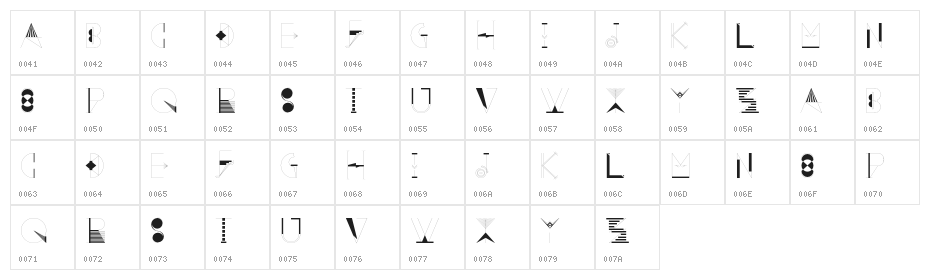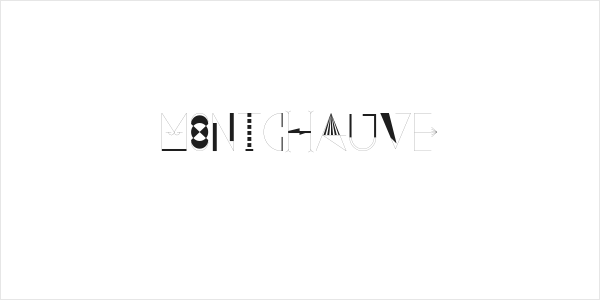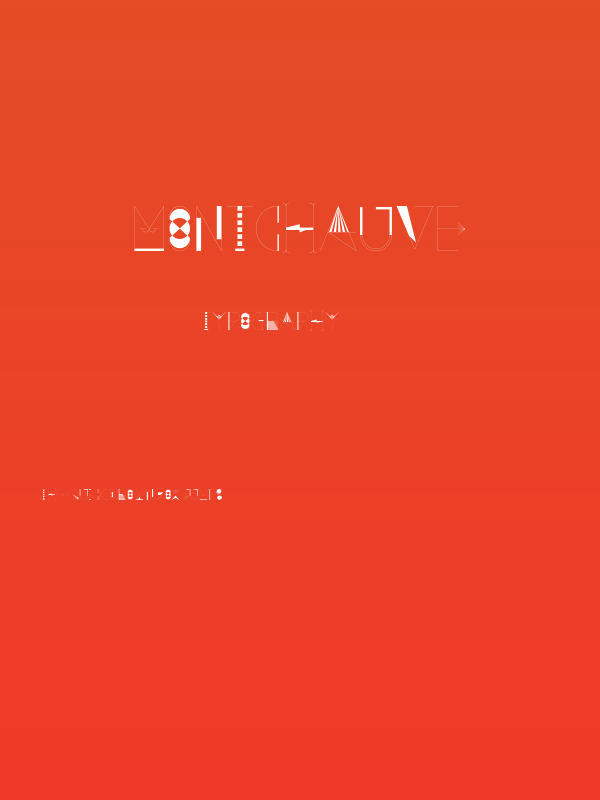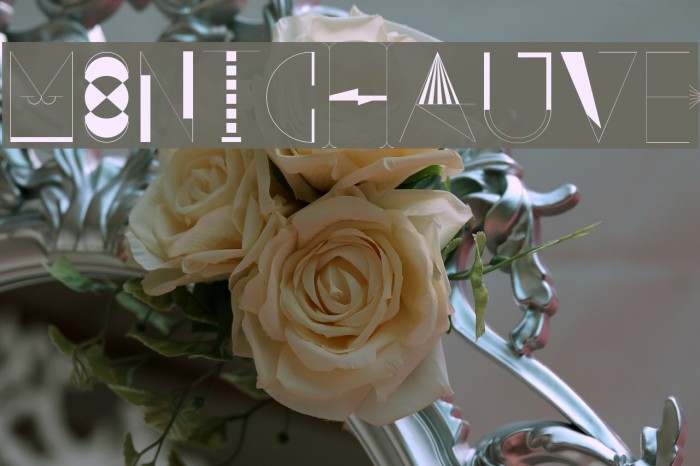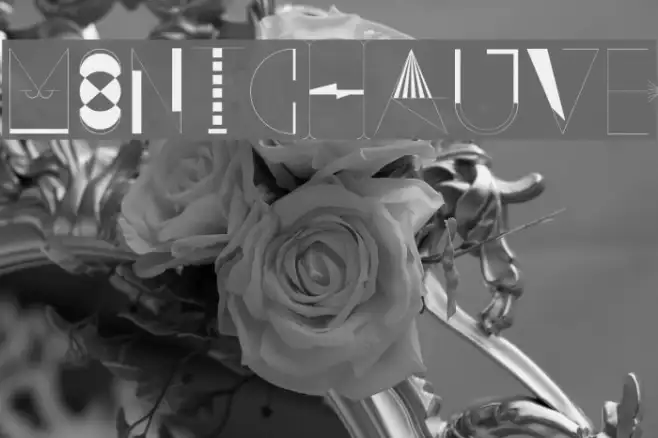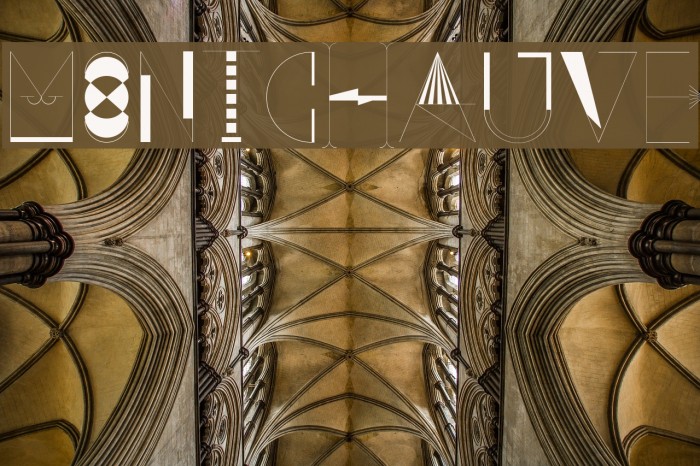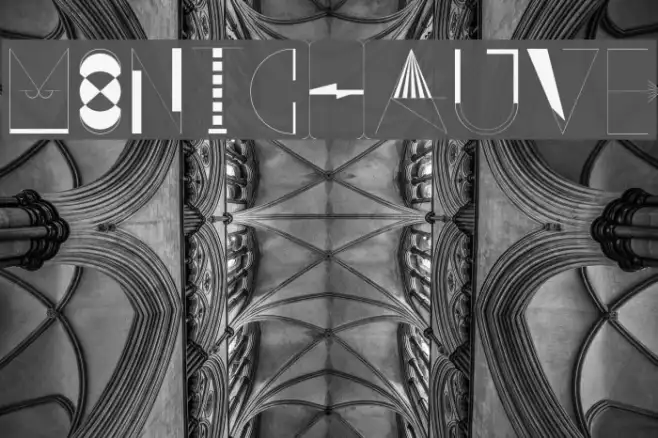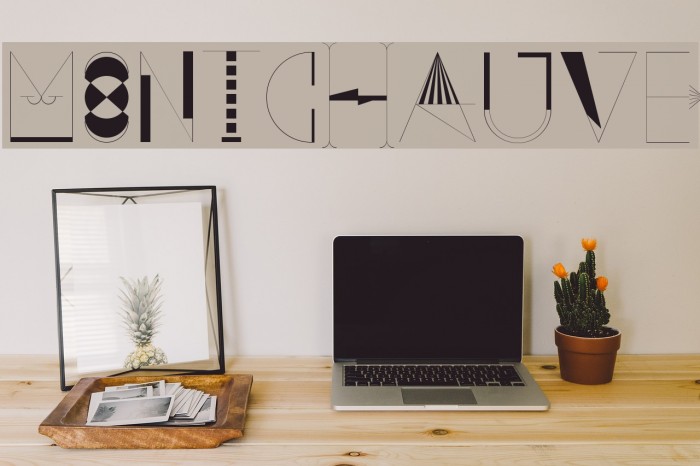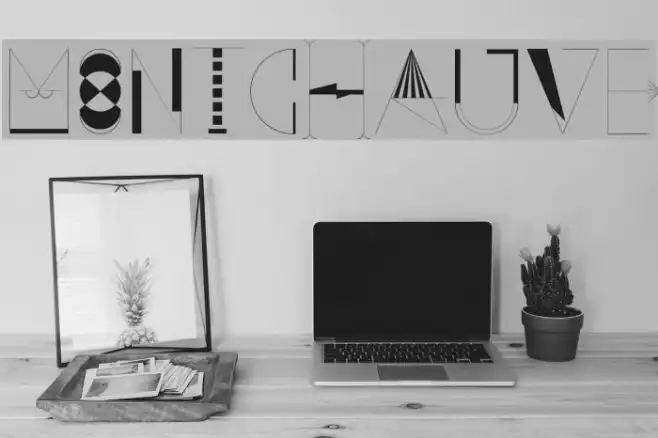
Montchauve Font
Montchauve Description
This font is a striking example of modern decorative typography, characterized by its unique and artistic design elements. Each letter is crafted with intricate geometric patterns and abstract shapes, creating a visually captivating and avant-garde appearance. The uppercase letters feature bold, experimental forms with varying line weights and unexpected angles, while the lowercase letters maintain a similar aesthetic with slightly more subtlety. The numbers are presented in a bold, square-like format, adding to the font's overall modern and edgy style. Special characters are designed with the same creative flair, ensuring consistency throughout the typeface. This font is perfect for projects that require a bold statement and a touch of artistic innovation.